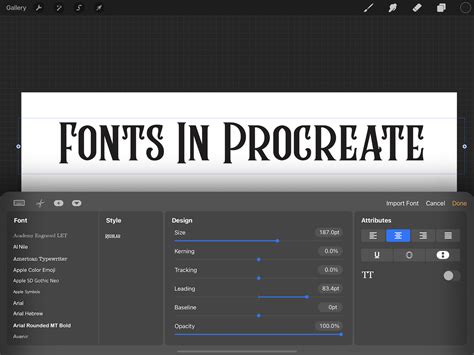
Creative Freedom Unleashed: Explore the Best Free Procreate Fonts for Commercial Use!
Unlock your creative potential with Procreate! As a digital artist, you know how important it is to have a great font selection for your projects. But not all fonts are made equal - some can be expensive, restrictive, or even illegal to use in commercial work.
But wait, there's more! Not only are these fonts legal to use commercially, they're also incredibly stylish and versatile. From elegant scripts to playful display fonts, we've got everything you need to create eye-catching designs. Plus, with new fonts being added all the time, you'll never run out of inspiration.
If you still need convincing, consider this: using unique, high-quality fonts can help your work stand out in a crowded market. With so many digital artists vying for attention, having a signature font can help you build your brand and attract more clients.
If you're anything like most creatives out there, then you certainly appreciate the unparalleled creative freedom that digital art tools such as Procreate offer. By its many features, including a variety of brushes, filters, and textures, Procreate allows users to explore an endless range of creative possibilities. However, another essential aspect of every design is typeface and choosing the perfect font on your project is paramount. Not only does it help bring your creative vision to life, but it also helps convey the message you're trying to communicate.
Why Fonts Matter in Procreate
Fonts can have a significant impact on the success of any design or artwork. They evoke emotions, establish tone and personality and can even make or break a design. Procreate, one of the most popular digital art applications, comes equipped with an extensive collection of fonts for users to choose from. However, sometimes, it's necessary to incorporate unique fonts that help to take your designs to the next level.
Best Free Procreate Fonts for Commercial Use
When looking for free Procreate fonts for commercial use, the internet has many options that could make it confusing to choose the best of the best available. However, we've narrowed down the list to include ten of the best Procreate fonts that are absolutely free and come with commercial rights.
1. Duo Font
The Duo font is a unique script that's perfect for personal and commercial projects. Its playful style and versatility give designers countless ways to use the font, making it an excellent addition to any collection.
2. Blueberry Script
Blueberry Script is a typeface font that works very well for branding, marketing, and other commercial projects. It's a perfect combination of modernity and elegance, giving it a wide range of uses.
3. Magelove Font
The Magelove font is a gorgeous cursive font that's perfect for wedding invitations or greeting cards. It can add a touch of elegance and sophistication to any design.
4. Sweet Mia Font
Sweet Mia is a beautifully designed monoline script that's perfect for modern graphic design. It's bold and eye-catching and can work wonders for branding and commercial design projects.
5. Loventhia Script
The Loventhia Script is a whimsical font that's perfect for social media graphics, quotes, and even logos. Its playful style gives designers a fun way to add personality to their projects.
6. Aleandro Script
Aleandro Script is an eye-catching cursive font that can add a lot of charm to any design. Its simple yet elegant style makes it a great choice for projects that require an air of sophistication.
7. High Tide Font Duo
The High Tide Font Duo is a strong and versatile font that can be used in a ton of different projects. It comes with both sans serif and script versions, giving designers a lot of flexibility in how they use the font.
8. Beyond Infinity Font
The Beyond Infinity Font is a beautifully designed script font that works well for modern and unfinished design concepts. It's perfect for use in web design, branding, and social media campaigns.